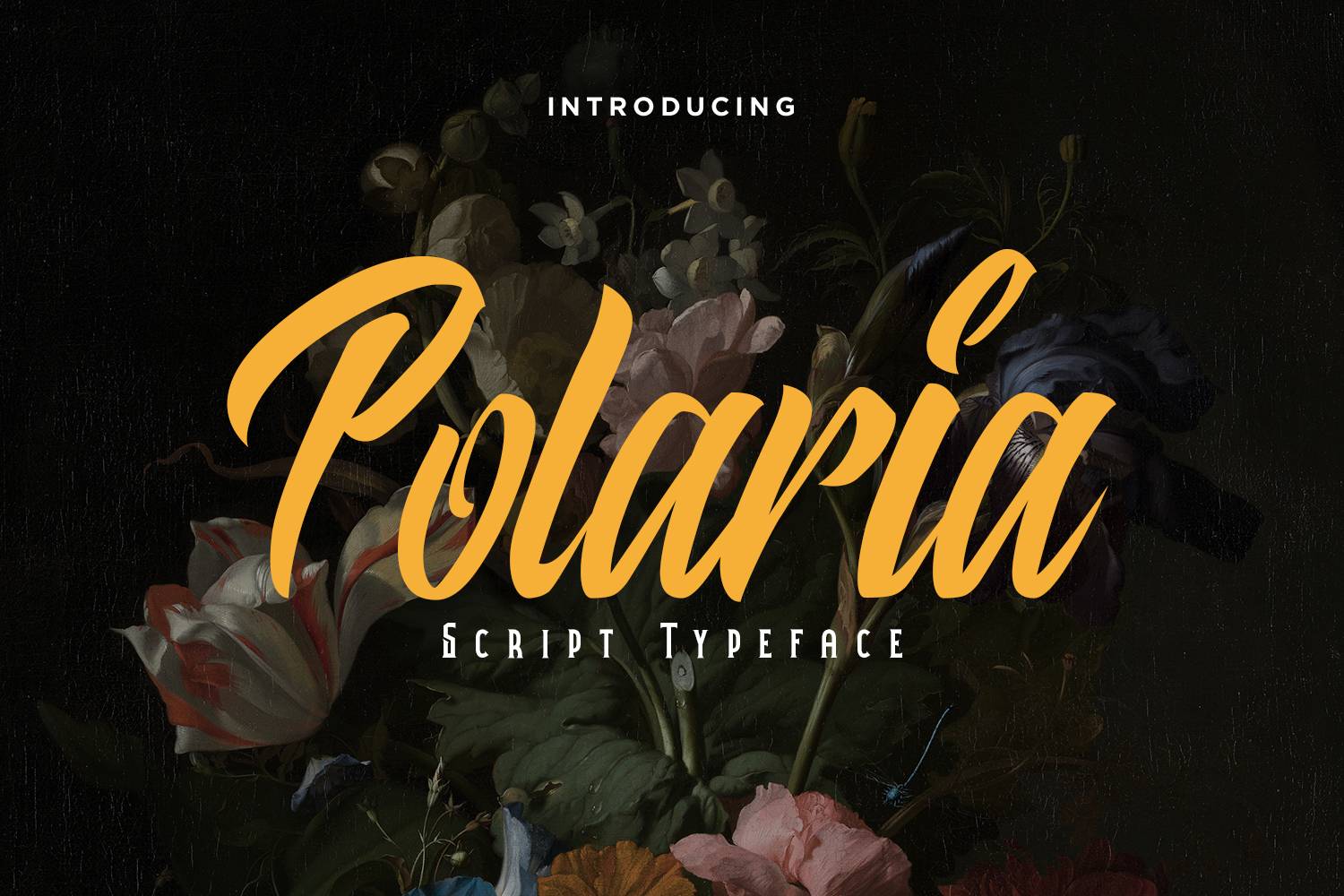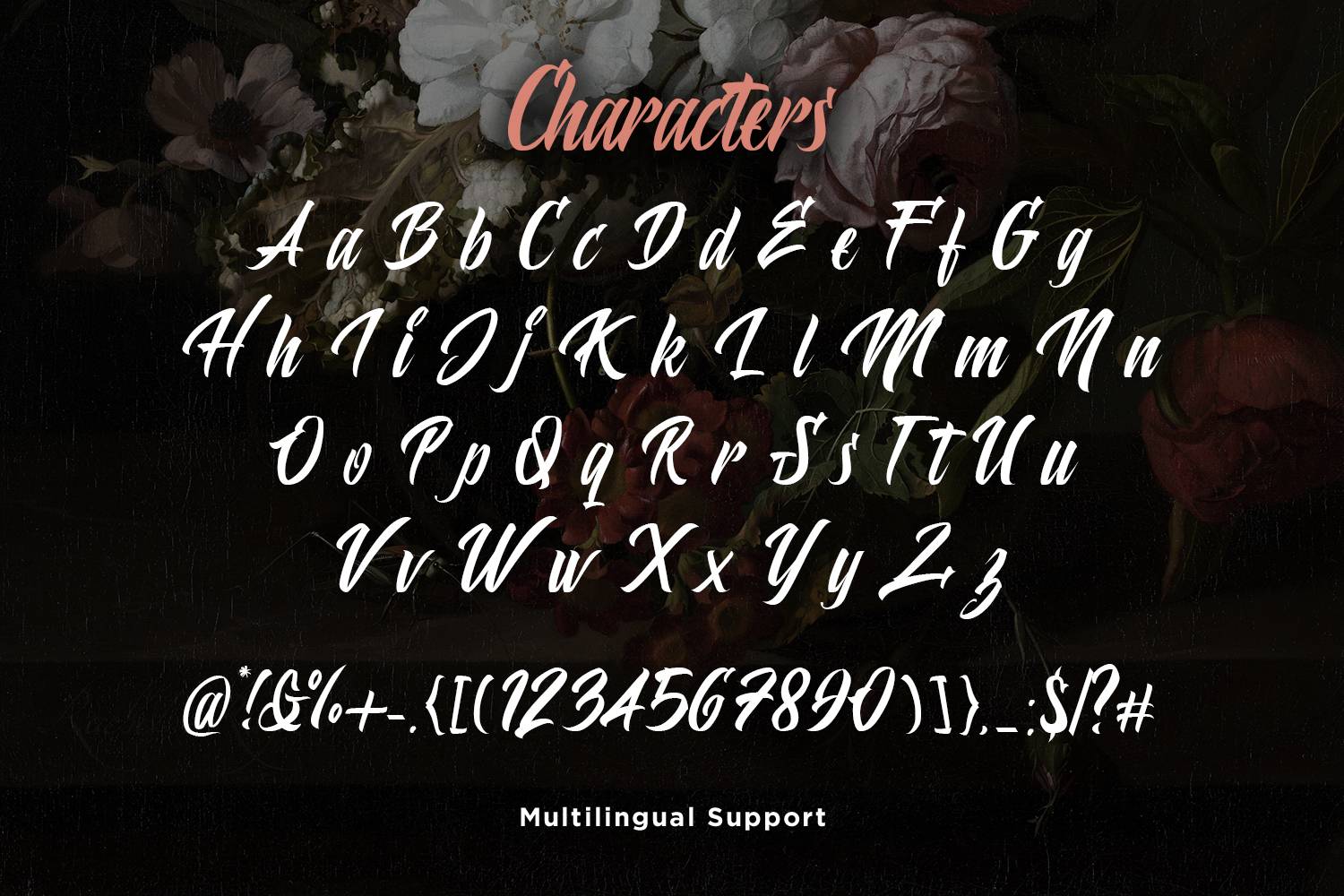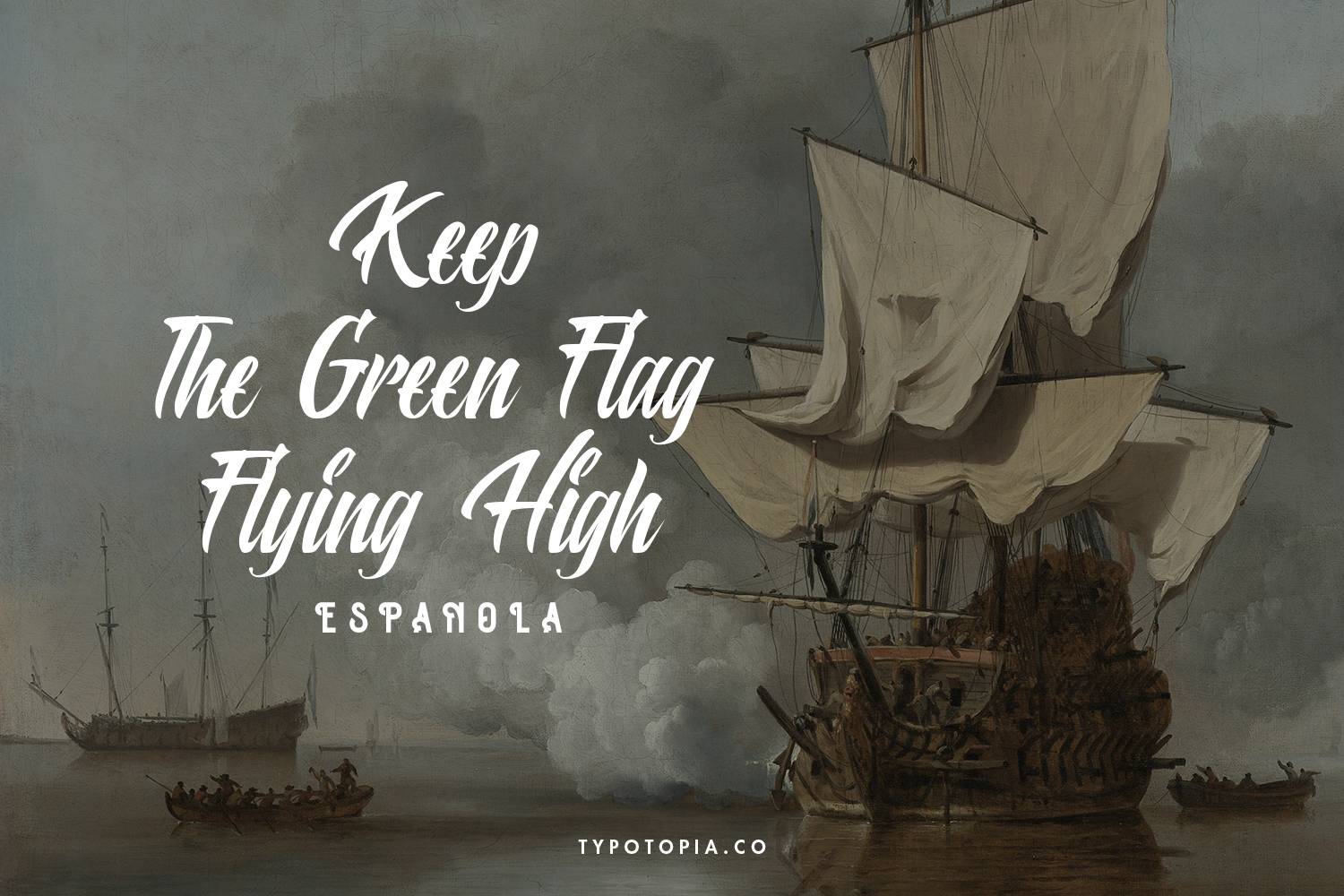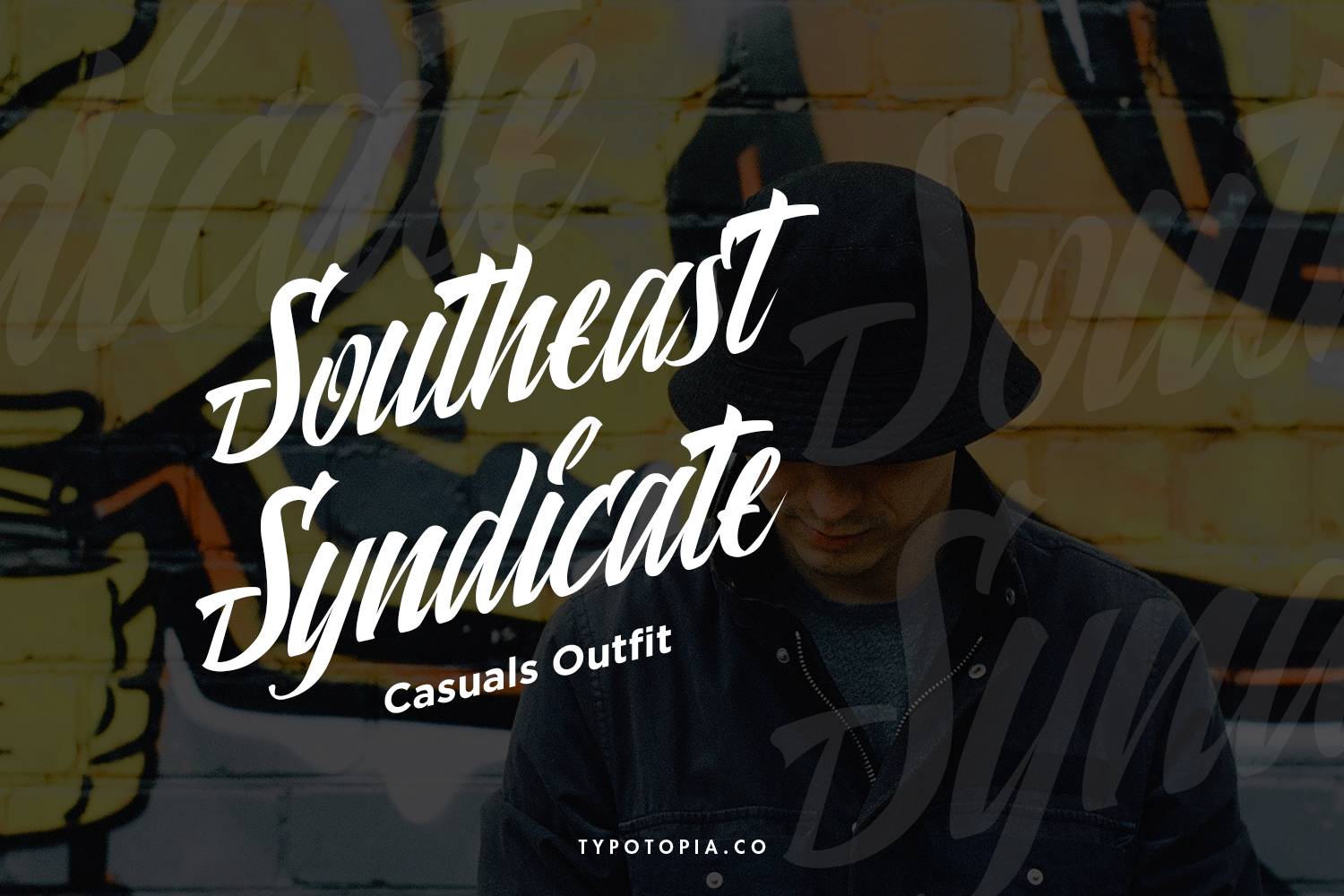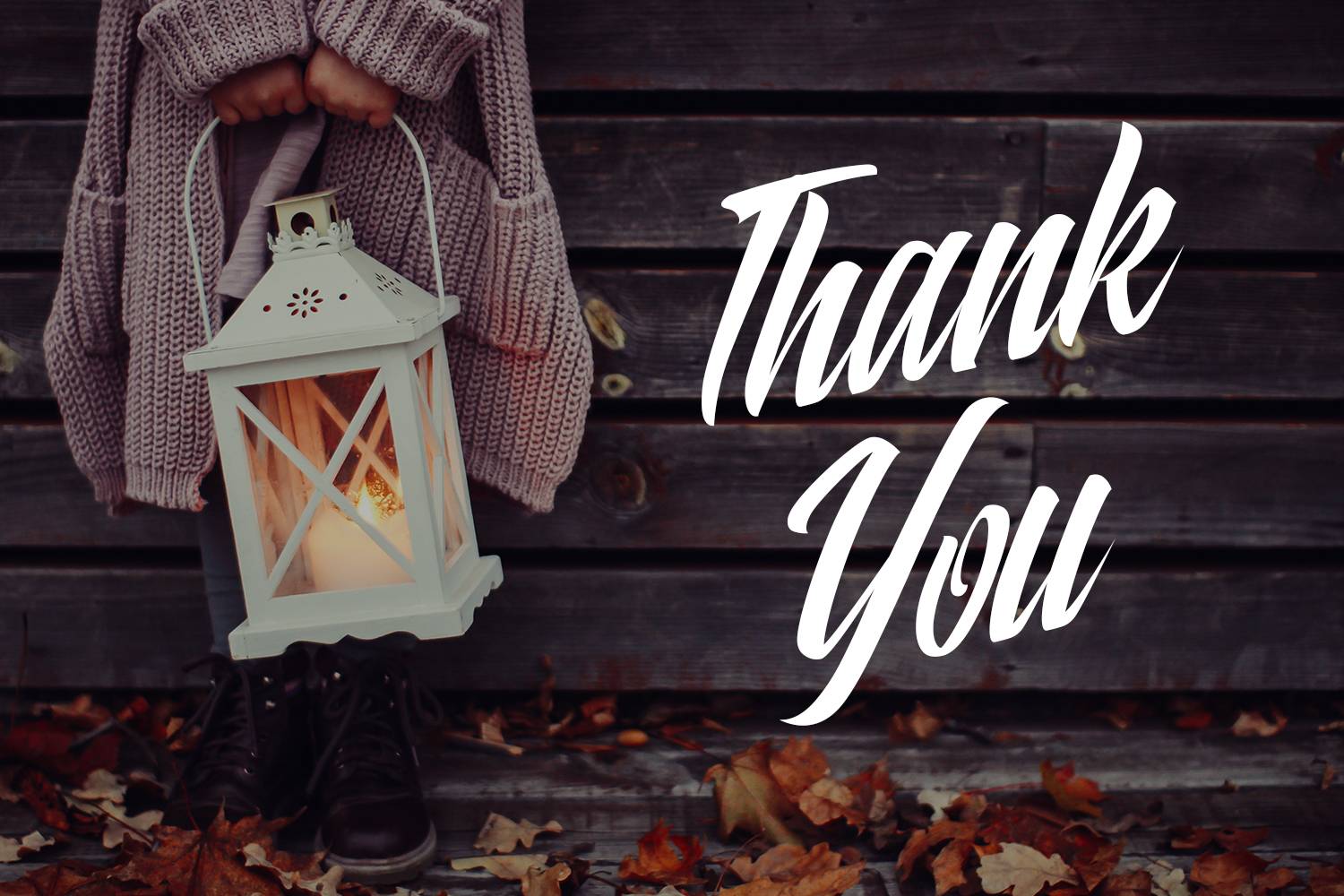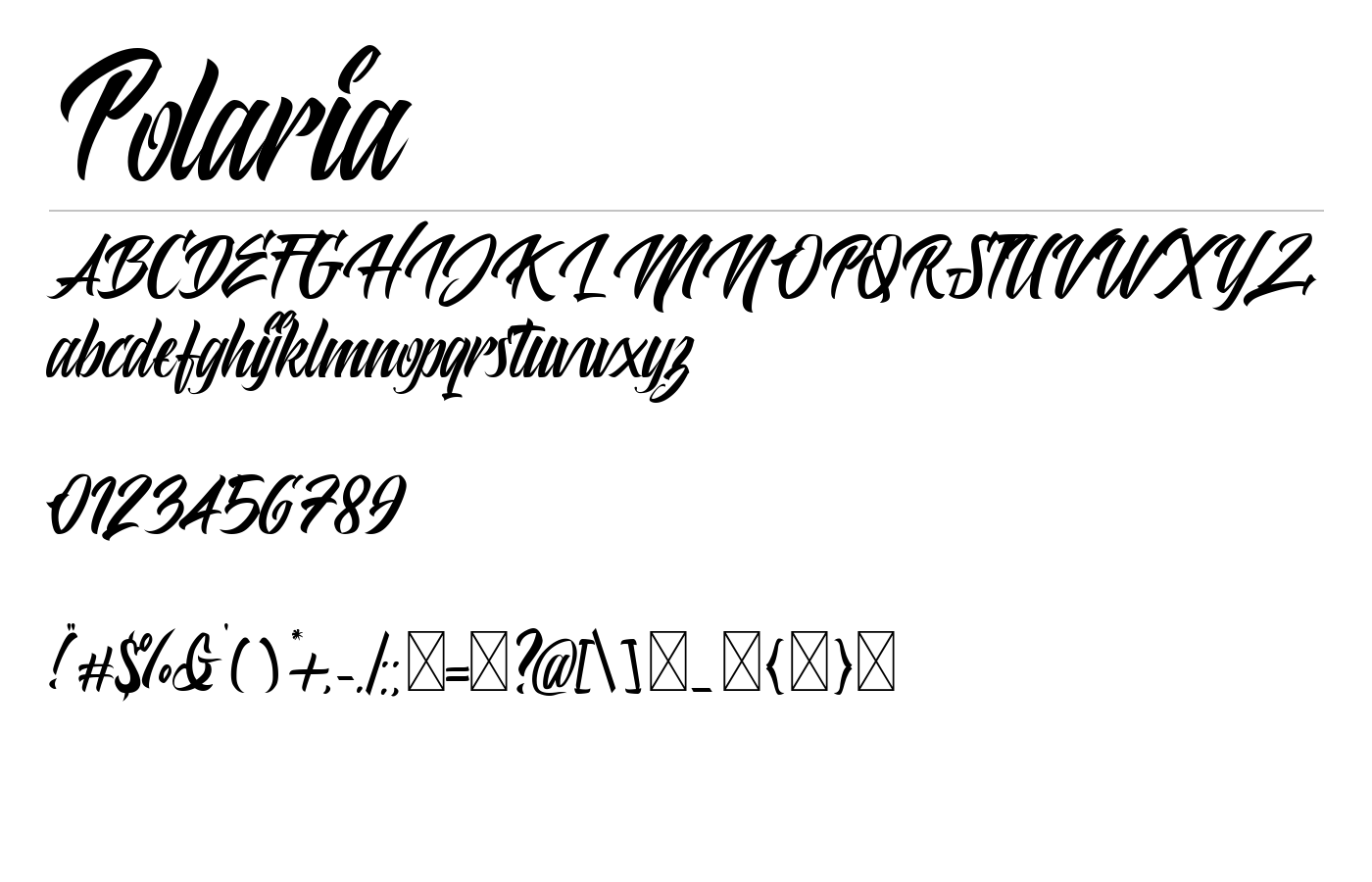
Polaria is a stylish script font with an elegant, hand-brushed look that combines fluid, dynamic strokes with a moderately high contrast between thick and thin lines. Its slender, italicized forms and flowing connections give it a sophisticated and artistic personality, making it ideal for fashion branding, logos, invitations, and creative headlines where a personal, refined touch is desired. This font’s graceful style works best in display settings, bringing a sense of movement and flair to any design.
Polaria Font
About Polaria Font
| Font family | Polaria Font |
| Designer | typotopia |